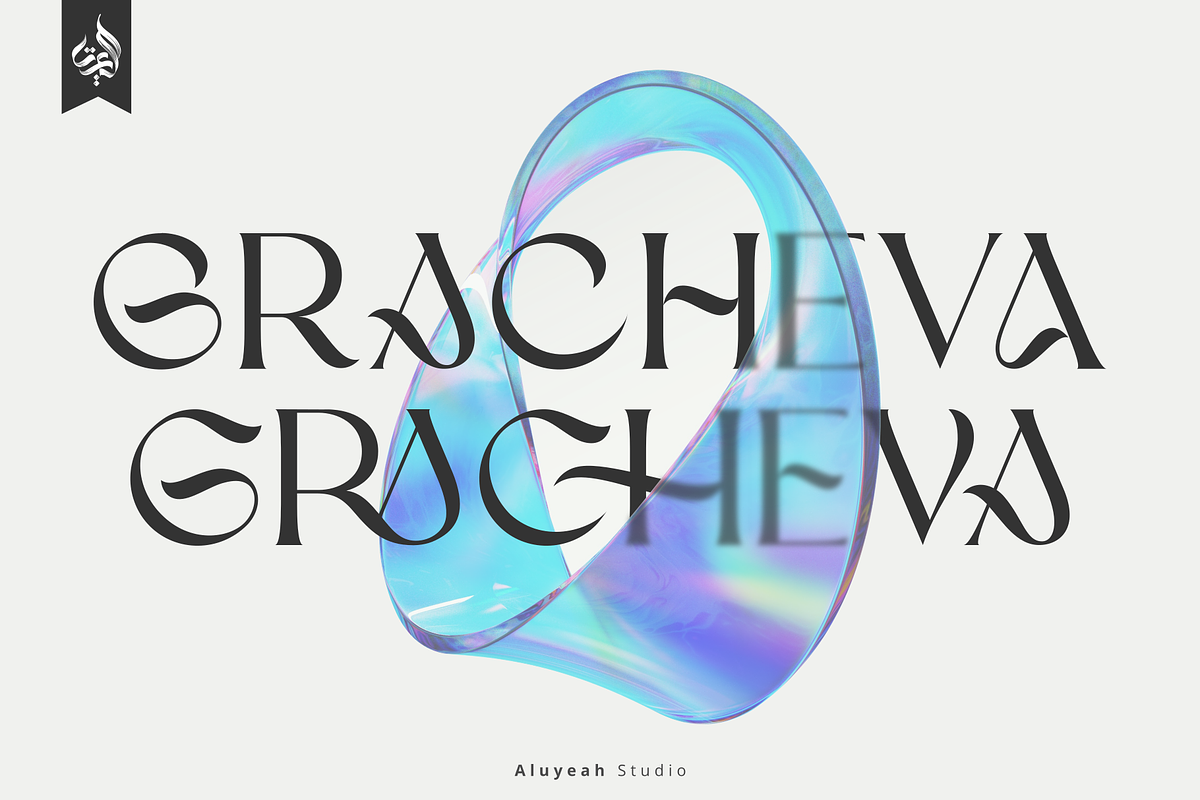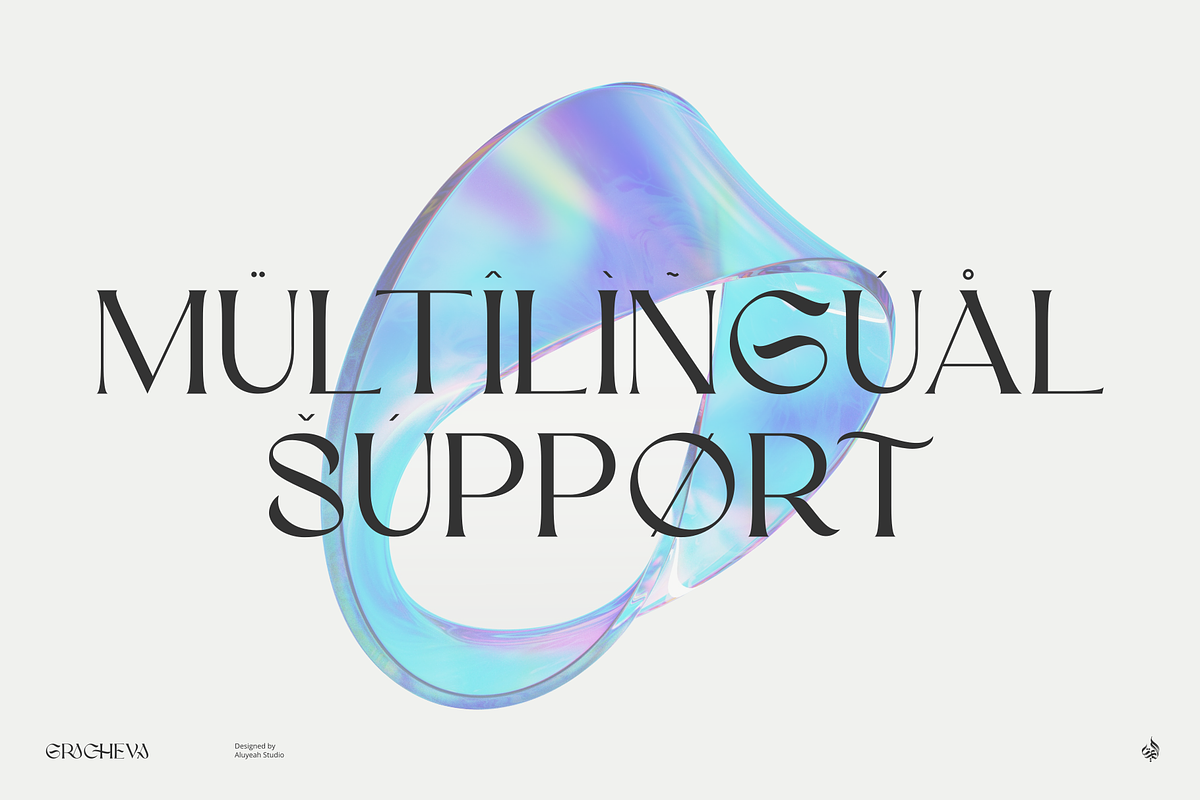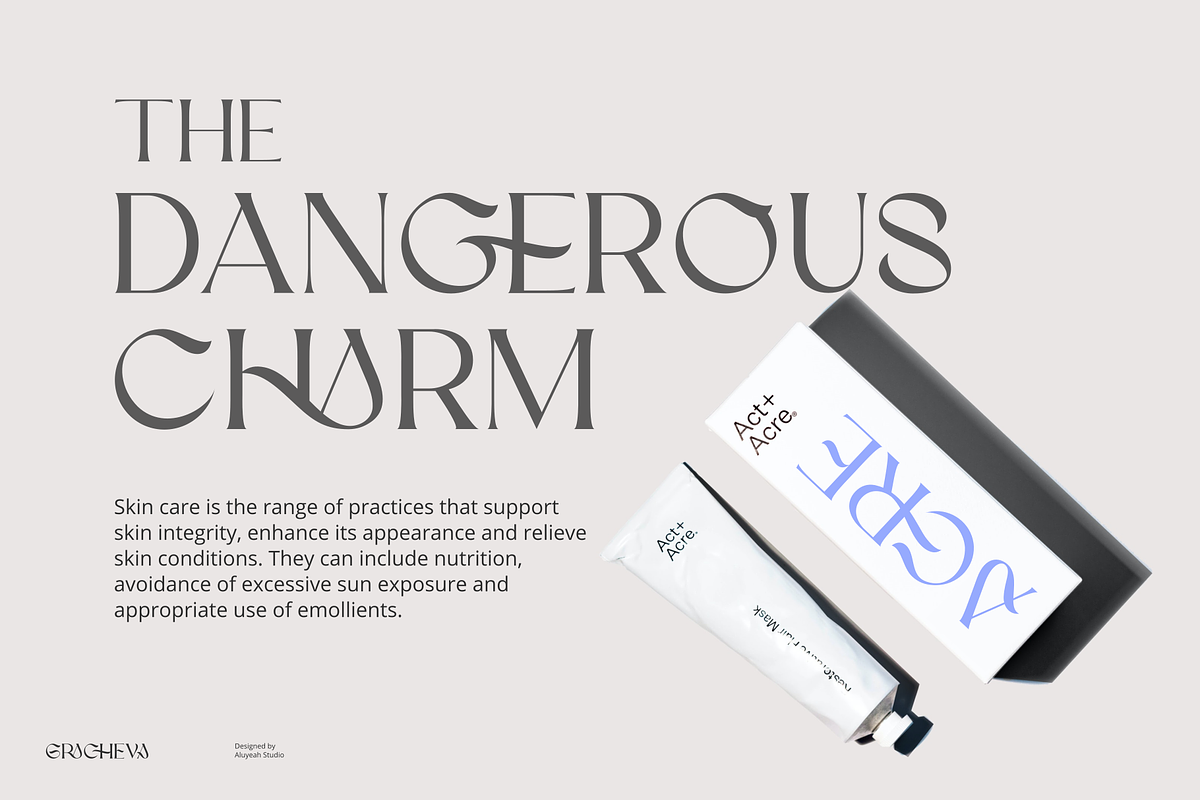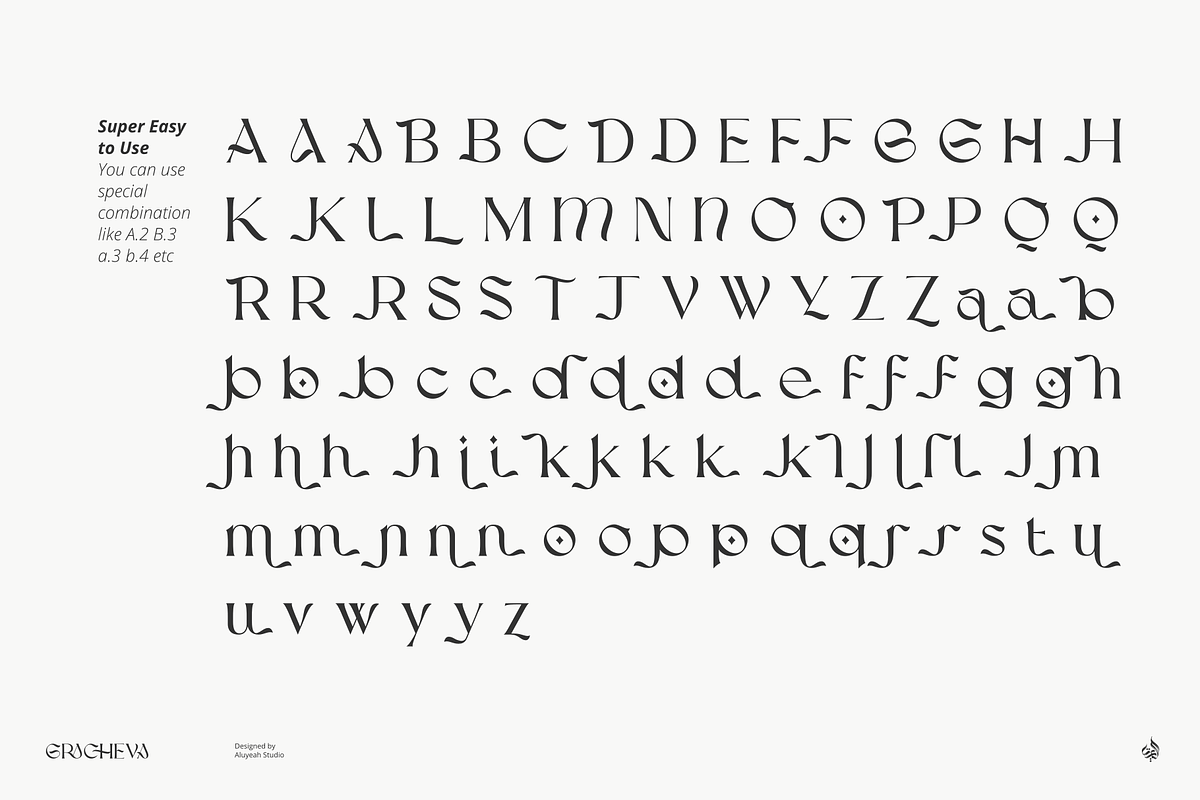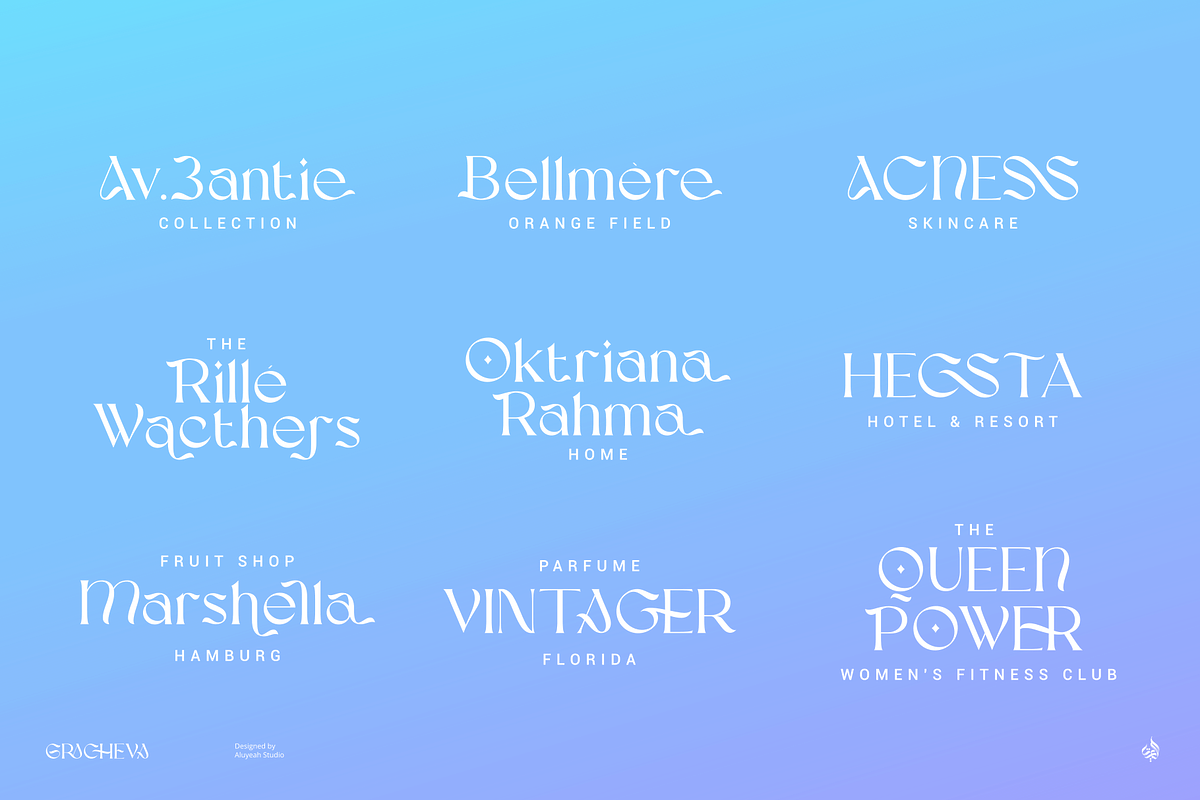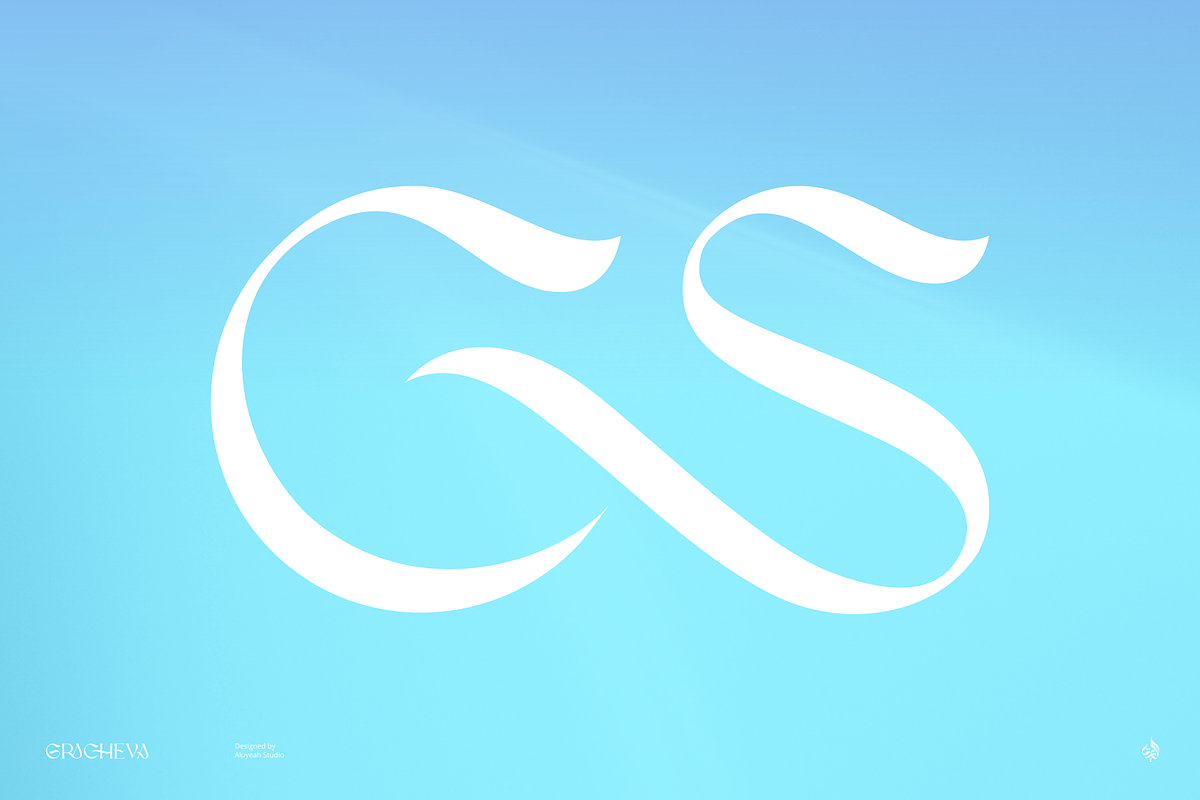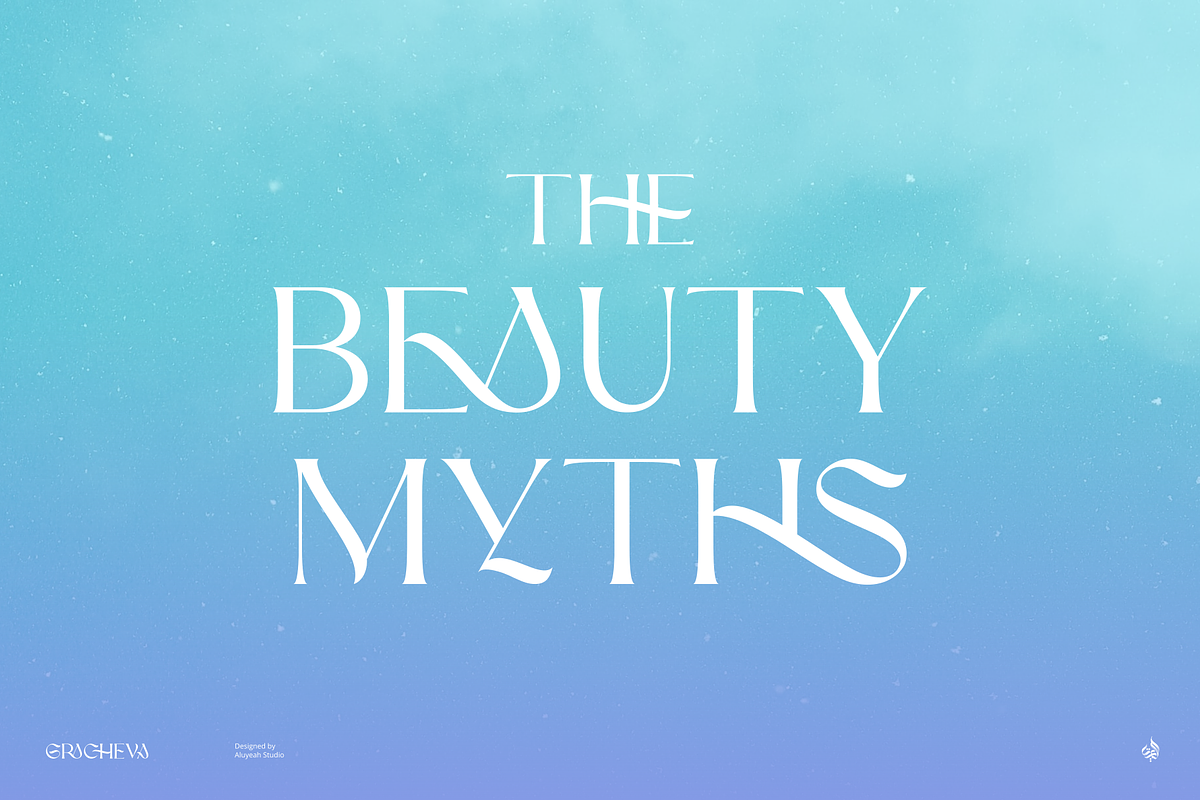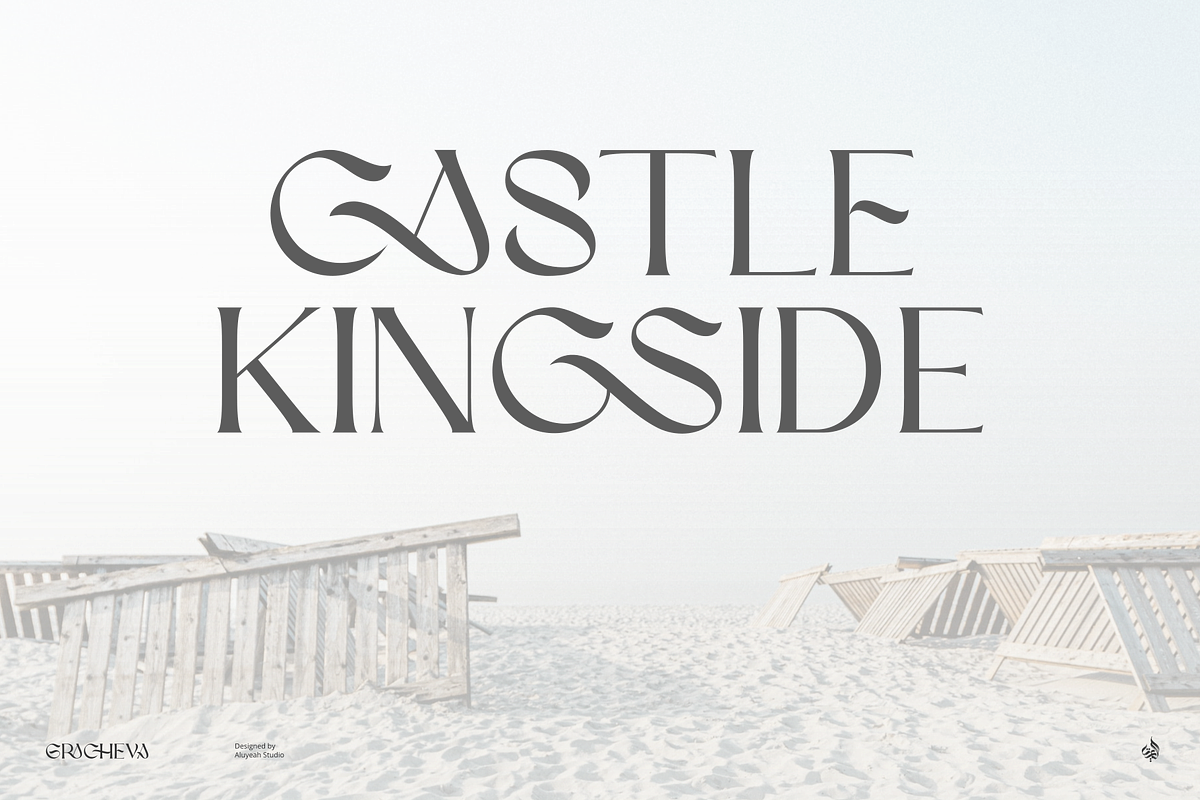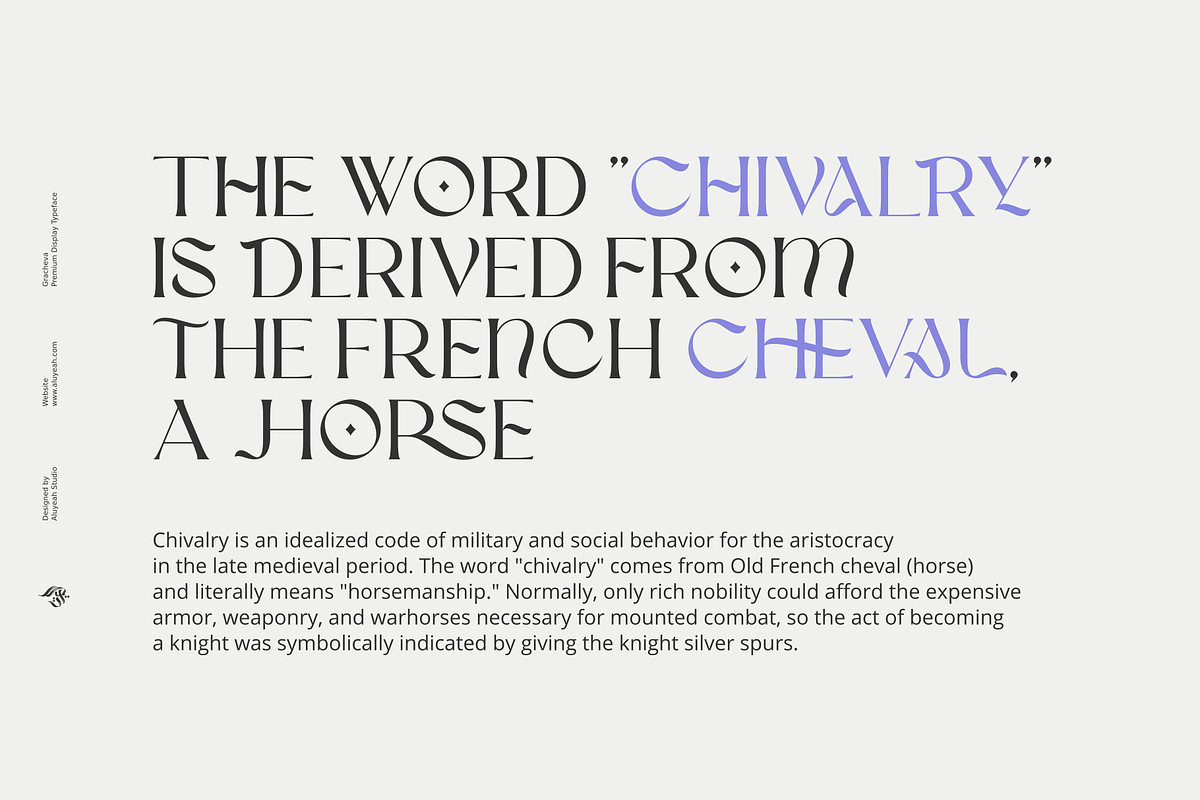
Gracheva | Premium Display Font
Grace and Cheval, the inspiration for the name Gracheval. The word "cheva" comes from Old French cheval (horse) and literally means "horsemanship". Gracheva gives the impression of elegance and powerful like a horse galloping on the shore.
Gracevha is a premium display typeface that conveys a charming elegance but powerful like a graceful wild horse that can be applied to many areas of design. Coming with 130+ stunning and super easy to use alternates and ligatures.
- OpenType support
- Multilingual support (15 languages)
- Super Easy to Use alternates - You can easily call alternates using special combination like A.2 S.2 A.E R.A etc.
To get results like the preview just type G.3R.AC.HE.2V.2A.4